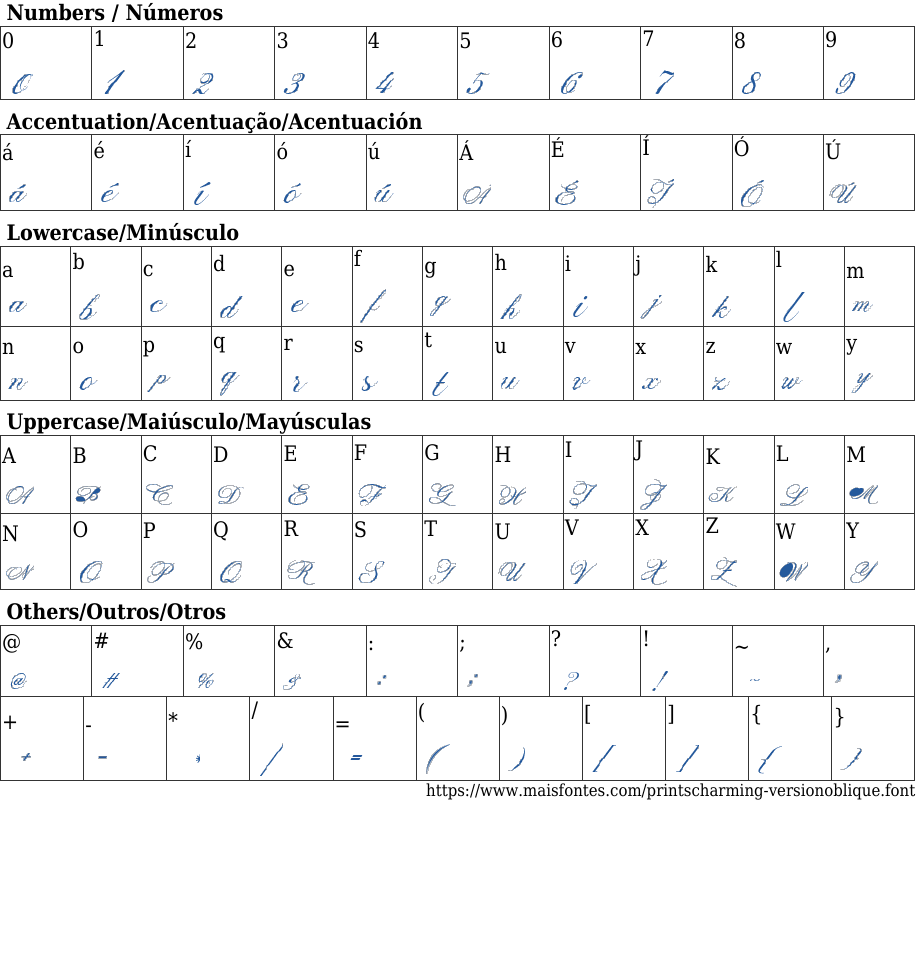
Prints Charming Font . Download prints charming regular font. Prints charming regular is a regular truetype font. Complete family of 4 fonts: Prints charming font family was designed by lloyd springer and published by typeart. Download the prints charming font for free in ttf format compatible with. search this site font information. Many of the prints charming individual character designs are based on script. individual styles from $45.00. download prints charming™ regular font. Complete family of 4 fonts: Votes, rated based on results identification. prints charming character map. It has been downloaded 116 times. Prints charming regular by typeart foundry. Download for free, view sample text, rating and more on fontsgeek.com.
Prints charming regular is a regular truetype font. Complete family of 4 fonts: Votes, rated based on results identification. Prints charming font family was designed by lloyd springer and published by typeart. Download the prints charming font for free in ttf format compatible with. Complete family of 4 fonts: download prints charming™ regular font. prints charming character map. individual styles from $45.00. Download for free, view sample text, rating and more on fontsgeek.com.
Prints Charming Font Download for free, view sample text, rating and more on fontsgeek.com. download prints charming™ regular font. Download the prints charming font for free in ttf format compatible with. Download prints charming regular font. Download for free, view sample text, rating and more on fontsgeek.com. Complete family of 4 fonts: Prints charming regular is a regular truetype font. Prints charming regular by typeart foundry. Votes, rated based on results identification. prints charming character map. Prints charming font family was designed by lloyd springer and published by typeart. search this site font information. It has been downloaded 116 times. Many of the prints charming individual character designs are based on script. individual styles from $45.00. Complete family of 4 fonts:
Charming Free Hand Drawn Font Prints Charming Font Votes, rated based on results identification. Many of the prints charming individual character designs are based on script. It has been downloaded 116 times. Download prints charming regular font. download prints charming™ regular font. prints charming character map. search this site font information. Download for free, view sample text, rating and more on fontsgeek.com. Prints charming font. Prints Charming Font.
Duke Charming A Unique Bold Serif Serif Fonts Creative Market Prints Charming Font download prints charming™ regular font. Download the prints charming font for free in ttf format compatible with. Complete family of 4 fonts: Prints charming regular is a regular truetype font. Complete family of 4 fonts: Download prints charming regular font. Votes, rated based on results identification. Download for free, view sample text, rating and more on fontsgeek.com. search. Prints Charming Font.
A Charming Font font by GemFonts FontRiver Prints Charming Font It has been downloaded 116 times. Prints charming regular by typeart foundry. Complete family of 4 fonts: Many of the prints charming individual character designs are based on script. Download prints charming regular font. individual styles from $45.00. download prints charming™ regular font. Votes, rated based on results identification. Download the prints charming font for free in ttf. Prints Charming Font.
Prints Charming Upper Case Font Sets MKM Prints Charming Font Download the prints charming font for free in ttf format compatible with. Prints charming regular is a regular truetype font. Prints charming regular by typeart foundry. search this site font information. download prints charming™ regular font. Complete family of 4 fonts: Prints charming font family was designed by lloyd springer and published by typeart. Complete family of 4. Prints Charming Font.